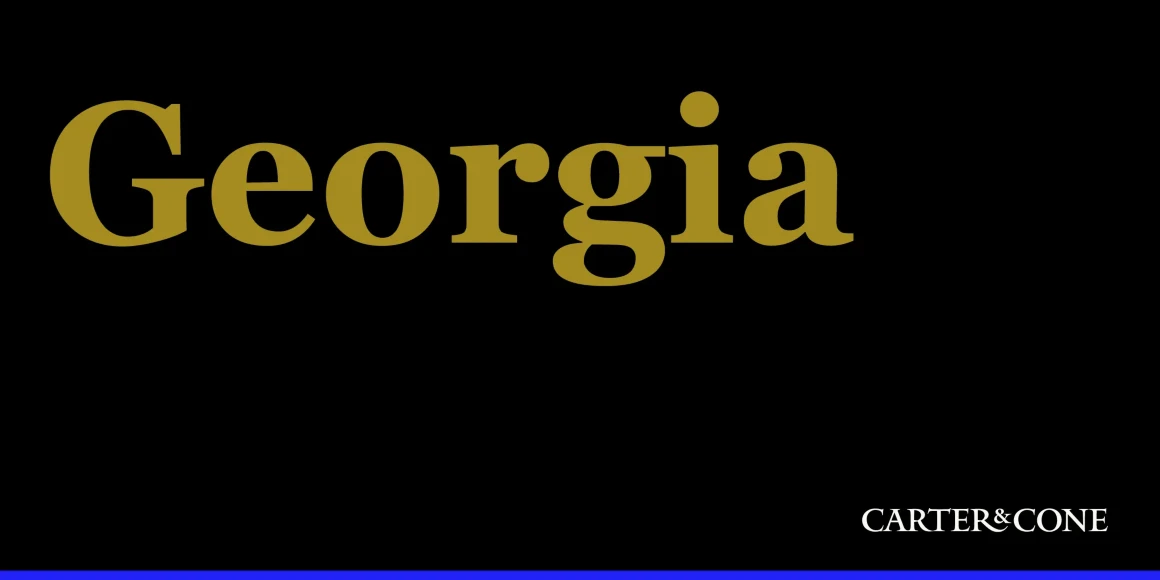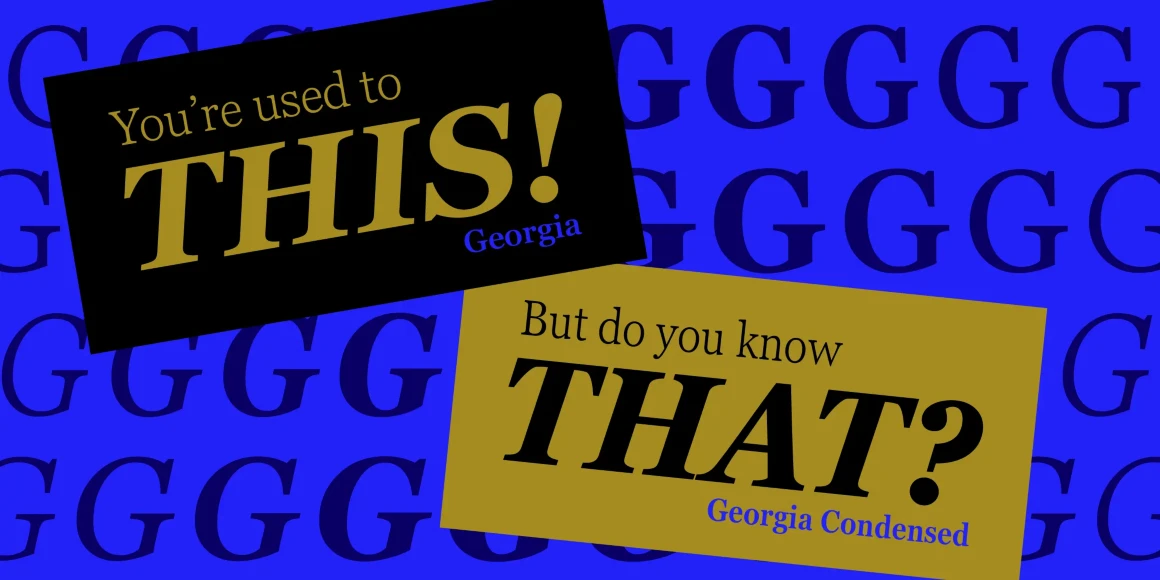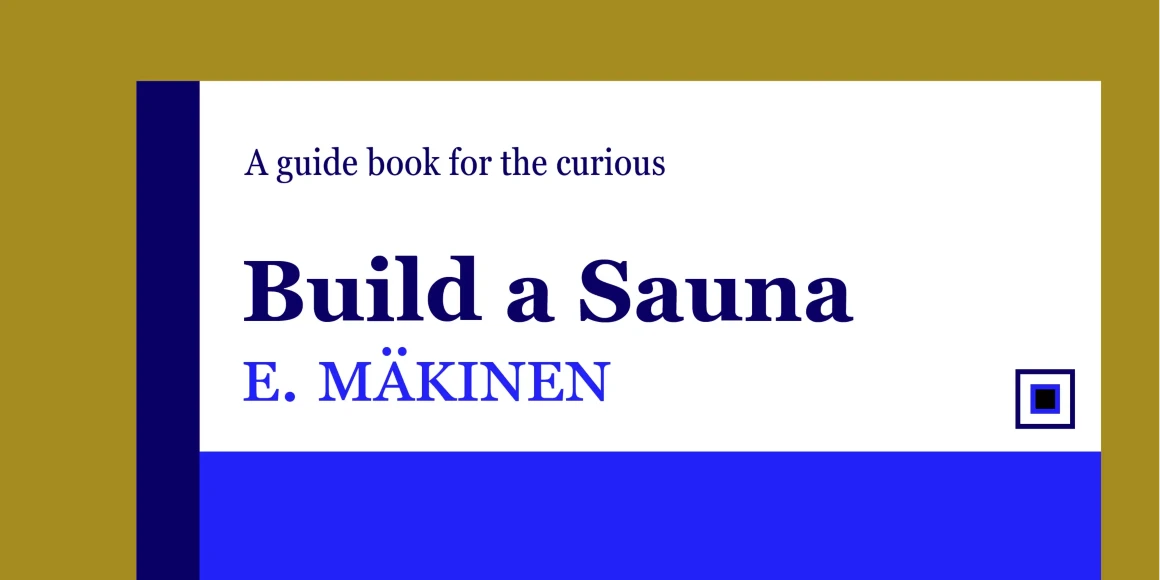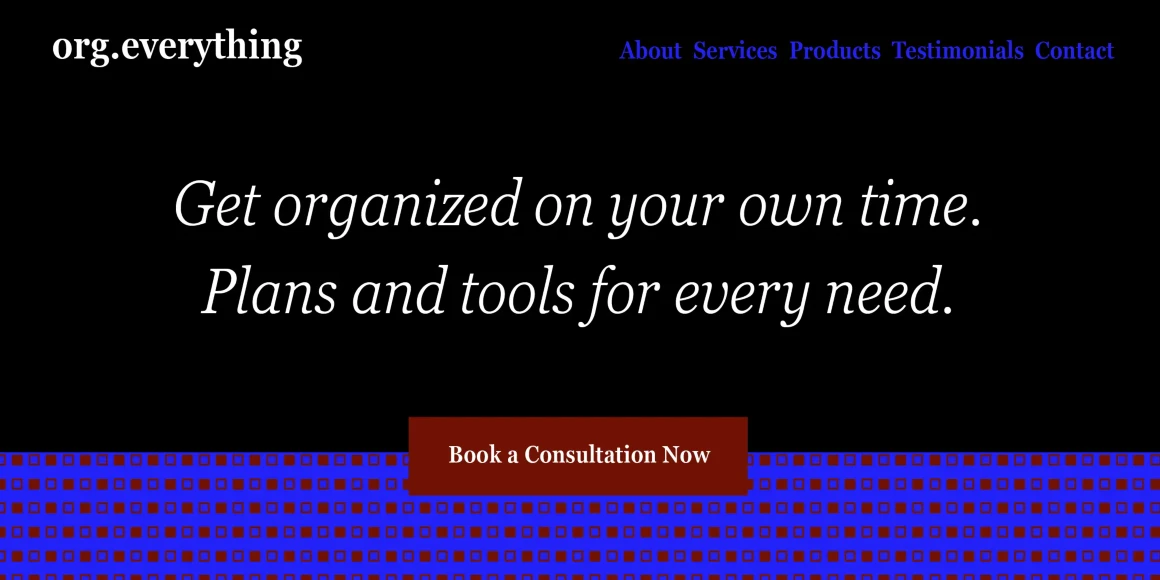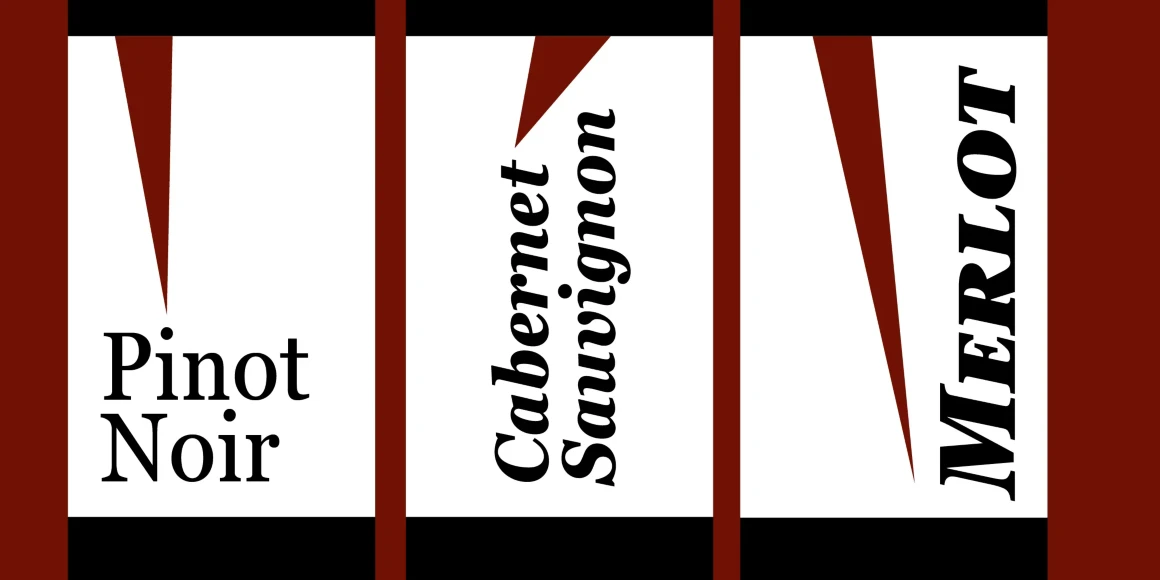
Georgia Pro
From Carter & Cone
Carter & Cone’s Georgia Pro was once only Georgia. Designed in 1996 by Matthew Carter for Microsoft as a sturdy, dependable serif typeface for optimal clarity in online reading. Steve Matteson has since added new weights, a Condensed width, multiple figure sets, and small caps — all with hinting by Tom Rickner — expanding the versatility beyond digital use. Available in 2 widths and 5 weights, all with companion italics, Georgia Pro is the trusted voice in all text setting on and off the screen.